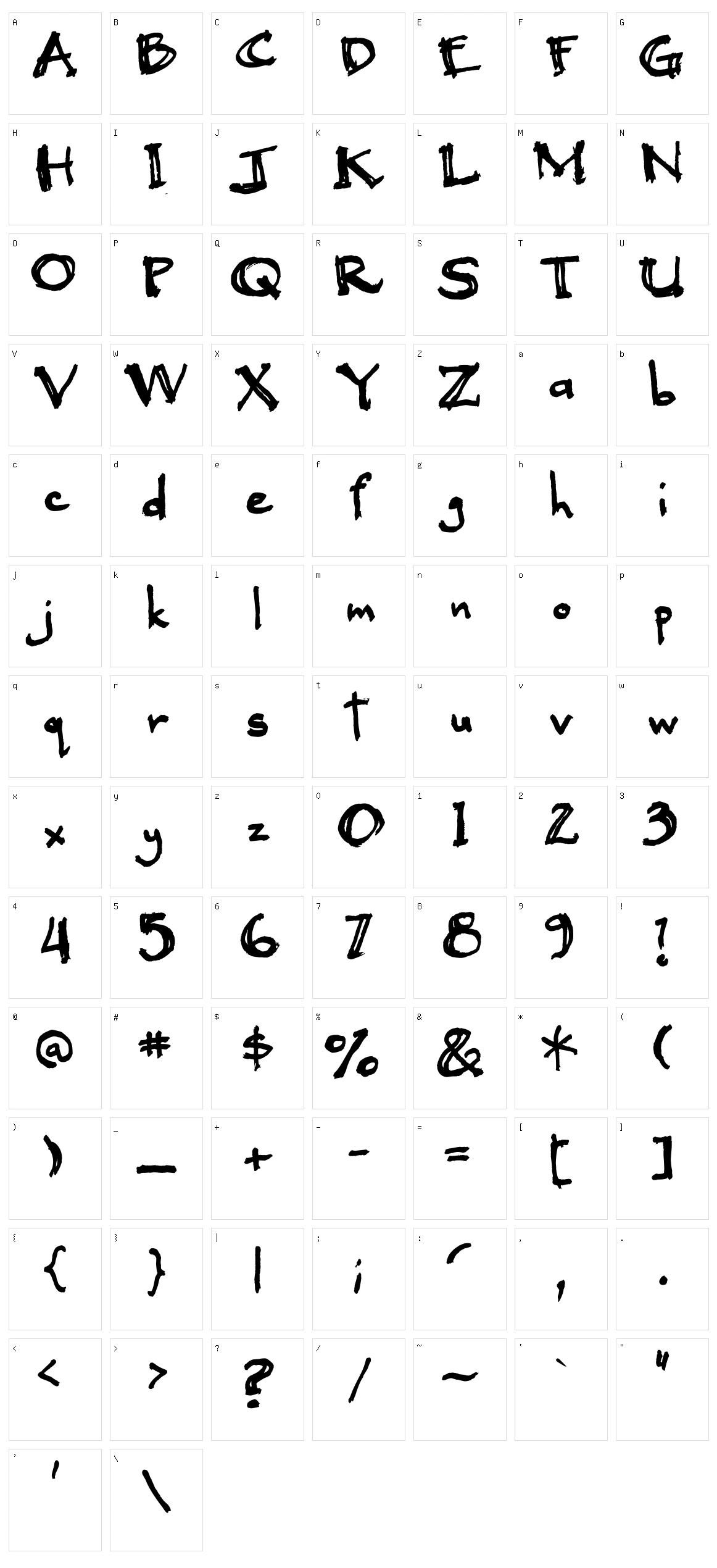
The free font Black Beauty is carefully designed by FontPanda, showcasing a thoughtful balance of creativity and usability and falls under the Script font style. When you download the ZIP file, it contains only 25.73 KB of font files, making it lightweight and quick to download. Please review the license details below to understand permitted usage and distribution rights. If license information is not available, we recommend using this font for personal projects only or contacting the author directly for commercial usage permissions.